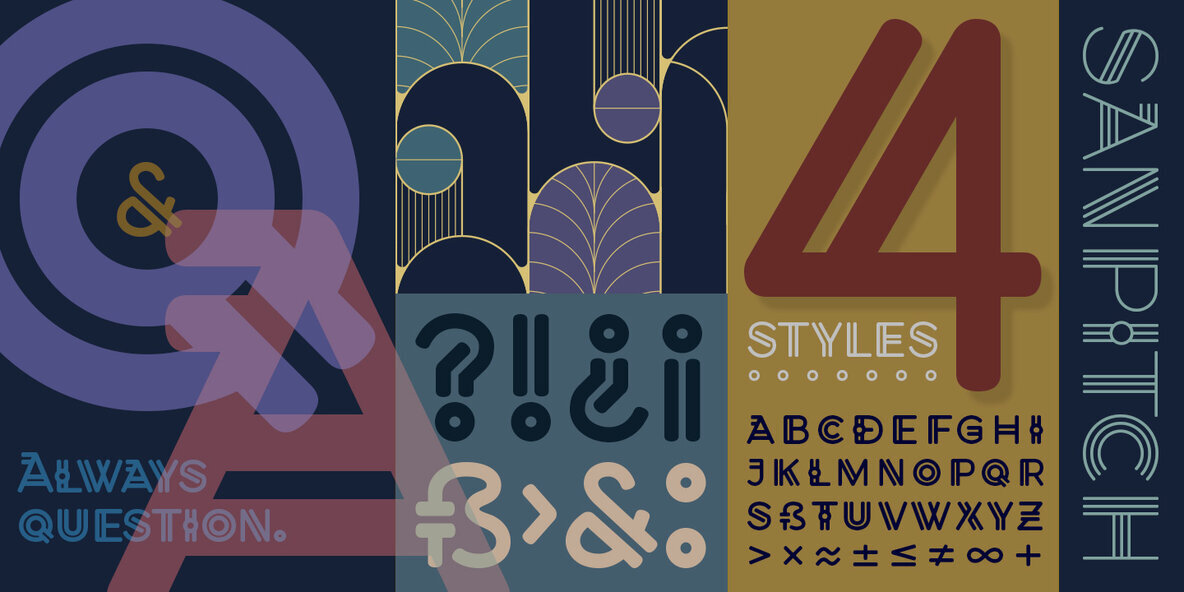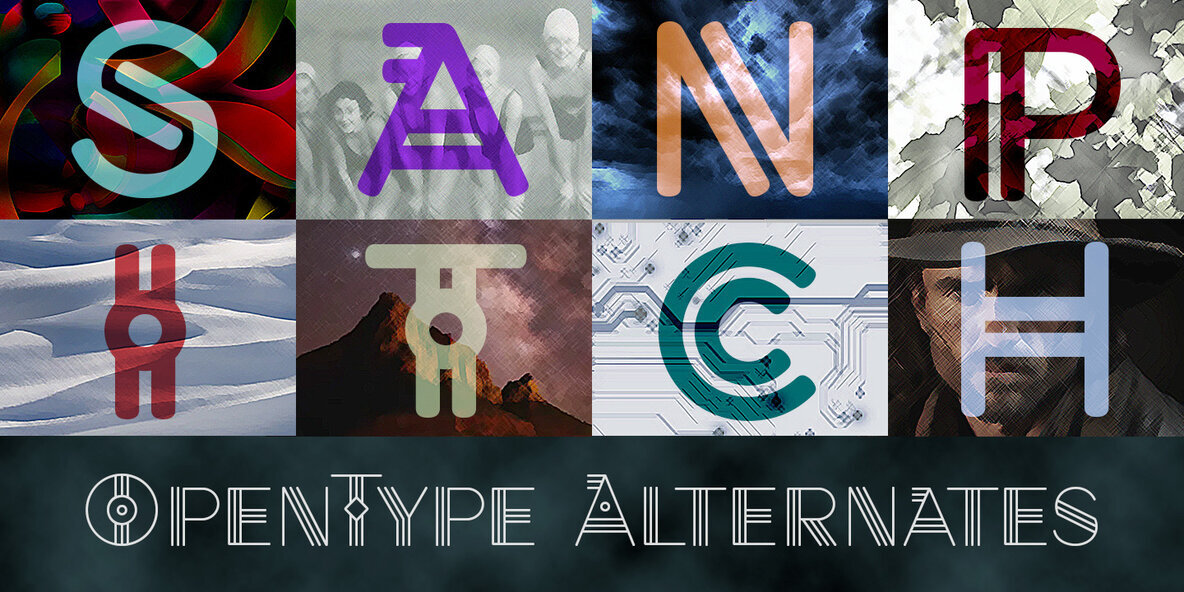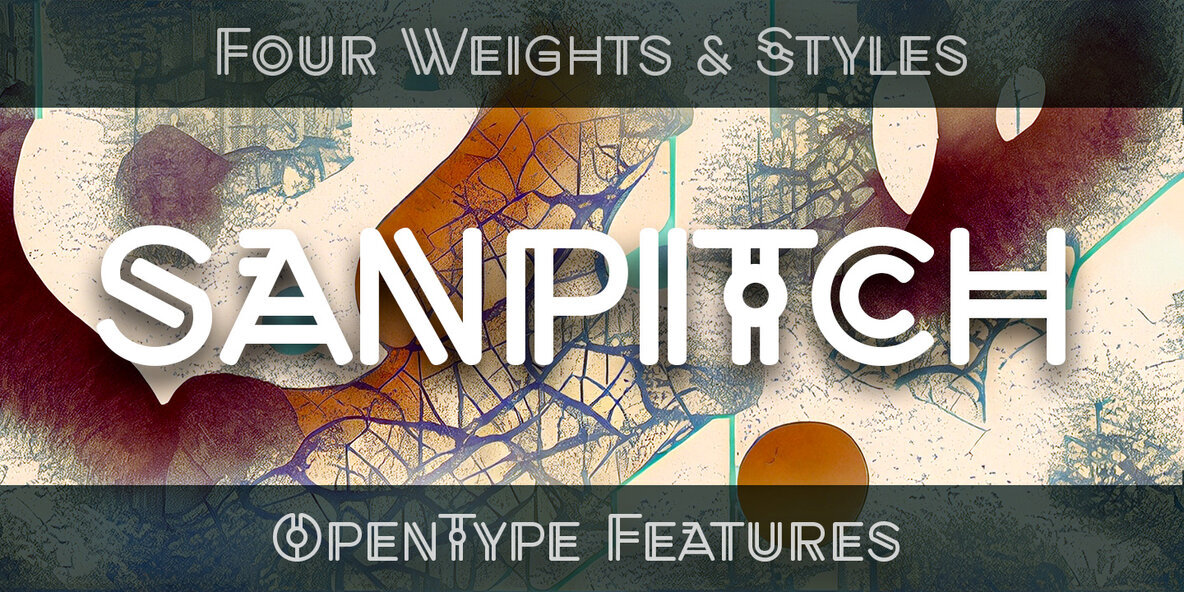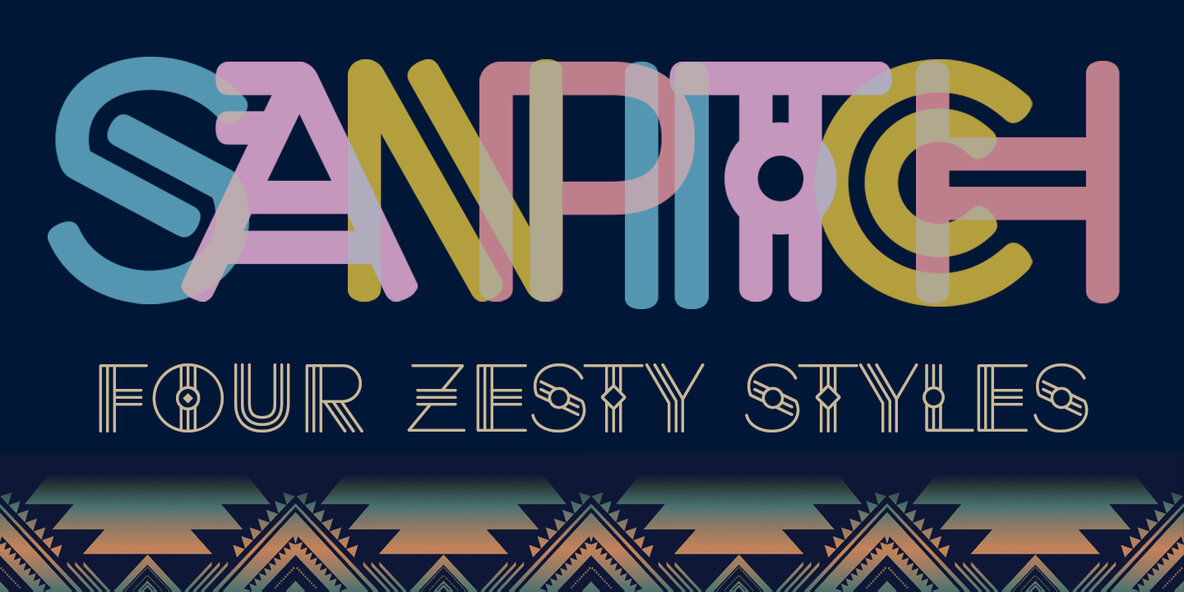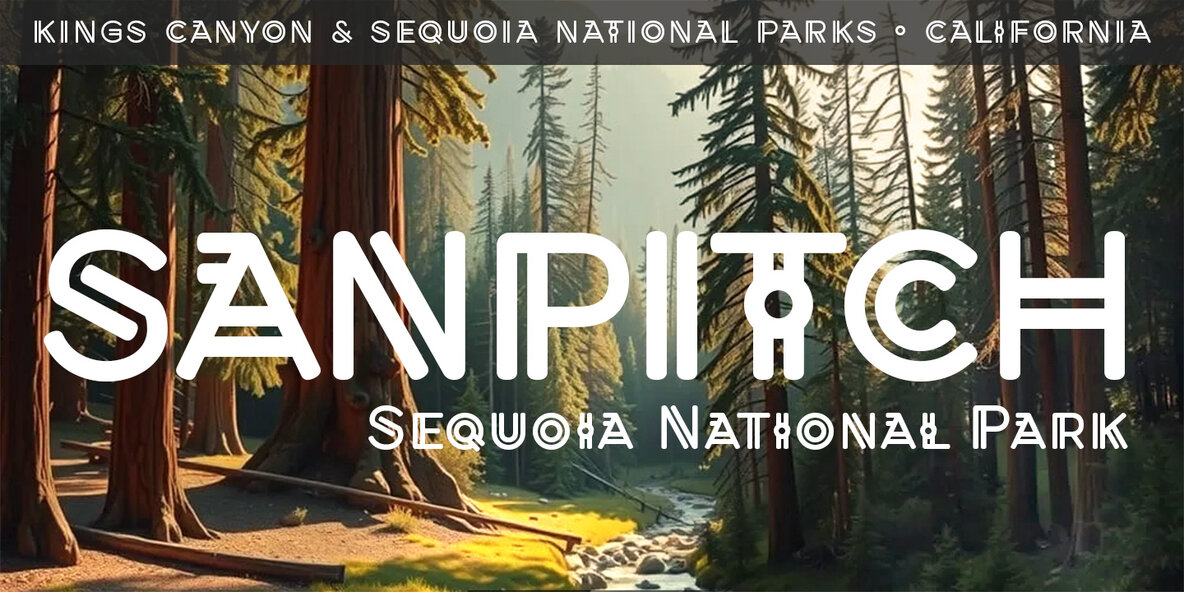
Sanpitch Font
Crafted from its origins as a hand-drawn magazine headline, Sanpitch has evolved over the past five years into a unique display typeface. This journey has culminated in a type family that boasts four distinct weights, each offering subtle differences for versatile design applications. Sanpitch is enriched with OpenType features, offering alternate characters and automatic fractions for enhanced typographical sophistication. Compatible with software such as Adobe and Affinity, Sanpitch seamlessly replaces awkward glyph pairs with visually appealing alternatives, enhancing the overall aesthetic of your text. Designers have the option to disable these features or customize their preferences for specific project needs.Sanpitch: A Versatile Display Typeface
Sanpitch invites you to explore its capabilities in enhancing graphic design projects across diverse languages and styles.
As a graphic designer, I've spent my career as an art and creative director for magazines, newspapers, and various corporate, government, and higher education clients. Sometimes, when I didn't have the perfect typeface for a headline, I would draw my own letters. Over time, I've expanded these headline letters...